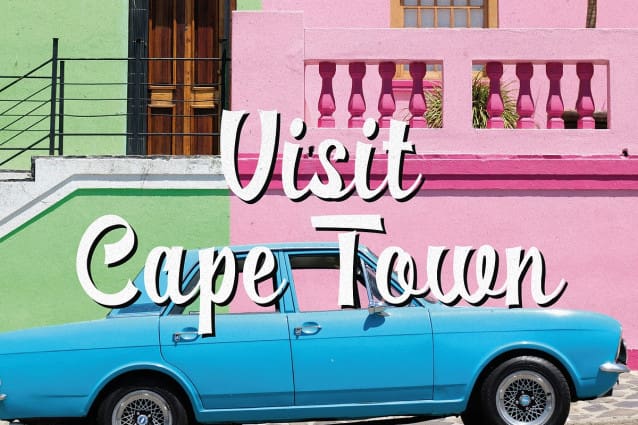
Swanky Mojo Font
Swanky Mojo Font is a striking vintage script typeface that effortlessly captures the spirited vibe and flamboyant essence of bygone eras. Inspired by the hand-lettered signage and advertising of the mid-20th century, this font brings a touch of nostalgia and timeless charm to modern design projects. Its flowing, interconnected letters are reminiscent of the classic script seen in vintage advertisements, cocktail menus, and retro movie titles, making Swanky Mojo an ideal choice for those looking to infuse their work with an authentic vintage flair.
Crafted with meticulous attention to detail, Swanky Mojo features a unique blend of thick and thin strokes, providing a dynamic contrast that adds depth and character to each letterform. The subtle variations in line weight and the smooth, elegant curves of the script give it a handcrafted look that is both sophisticated and approachable. This typeface not only evokes the warmth and optimism of the past but also brings a sense of sophistication and swankiness to contemporary projects.
Swanky Mojo is highly versatile, suitable for a wide range of applications from branding and packaging to invitations and editorial design. Whether you’re creating a logo for a boutique, designing packaging for artisanal products, or setting the scene for a themed event, Swanky Mojo adds a genuine vintage touch that is both appealing and memorable.
The typeface includes an extensive set of characters, numerals, and punctuation marks, along with a selection of stylistic alternates and ligatures that allow designers to customize their creations with ease. This flexibility ensures that Swanky Mojo can adapt to various contexts while maintaining its distinctive vintage charm.
Embrace the swanky sophistication of Swanky Mojo and let your designs dazzle with the timeless allure of vintage script. This typeface is not just a font; it’s a portal to the past, offering a slice of history to those who dare to incorporate its unique mojo into their creative visions.